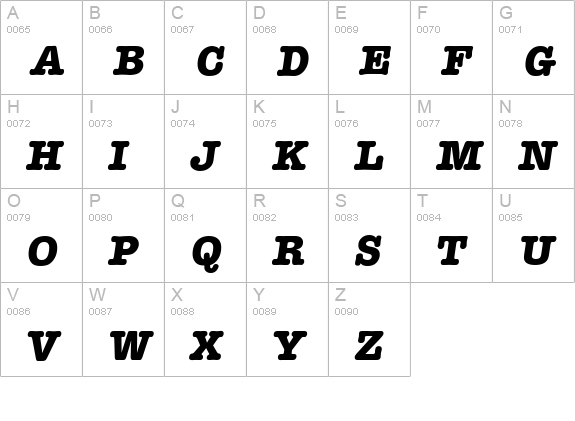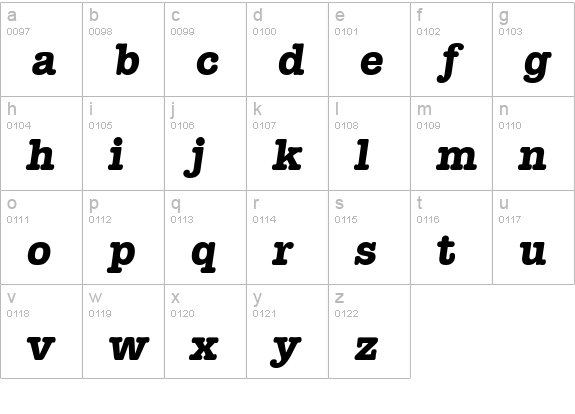
TypewriterSerial-Xbold-Italic is a distinctive, italic variant in the TypewriterSerial typeface family \xE2\x80\x94 well suited to design and typography projects.
Introducing TypewriterSerial-Xbold-Italic font, a bold and unique typeface that brings a touch of vintage charm to your projects. This font captures the essence of classic typewriters with its distinctive style and sleek italic design. The robust and eye-catching appearance of TypewriterSerial-Xbold-Italic font is perfect for adding a touch of nostalgia and sophistication to your designs. Best of all, TypewriterSerial-Xbold-Italic font is available for free download at FontsMarket.com. Whether you're working on a retro-inspired project, creating a stylish logo, or designing eye-catching promotional materials, this font is a versatile choice that will make your text stand out. Embrace the timeless appeal of TypewriterSerial-Xbold-Italic font and elevate your design projects with its bold and italicized characters.